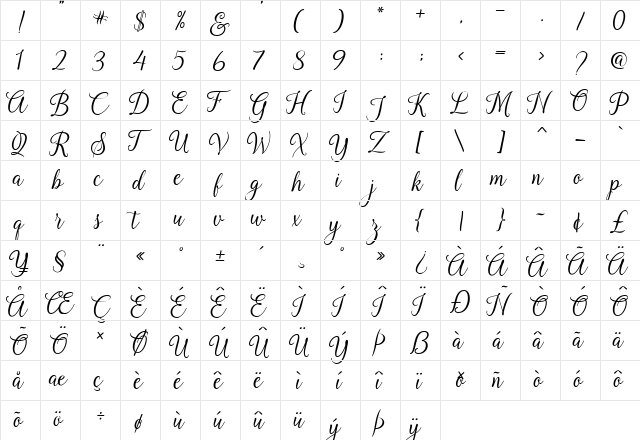
Kasandra Script Regular
Design Context for Kasandra Script Typeface
Kasandra Script flows with the natural rhythm of handwritten lettering, making it ideal for designs that call for warmth and personal expression.
Font Pairing: Combine Kasandra Script with a simple geometric sans for maximum contrast — the tension between flowing curves and clean structure is a classic typographic pairing.
Pro Tip: Pair Kasandra Script with a clean sans-serif for supporting text. The contrast between fluid script and geometric structure creates an elegant typographic hierarchy.